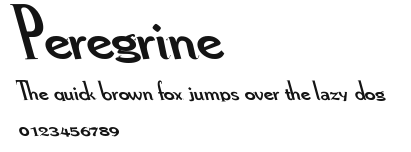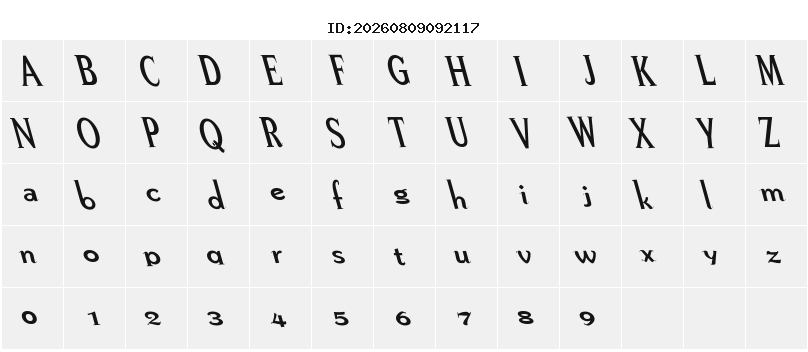
• Font Name: Peregrine
• Font ID: Peregrine
• Full Font Name: Peregrine
• PostScript Name: Peregrine
About Peregrine.ttf
Peregrine.ttf is a modern, elegant sans-serif font designed for ultimate readability and visual harmony. Perfect for branding, headlines, web design, and print materials.